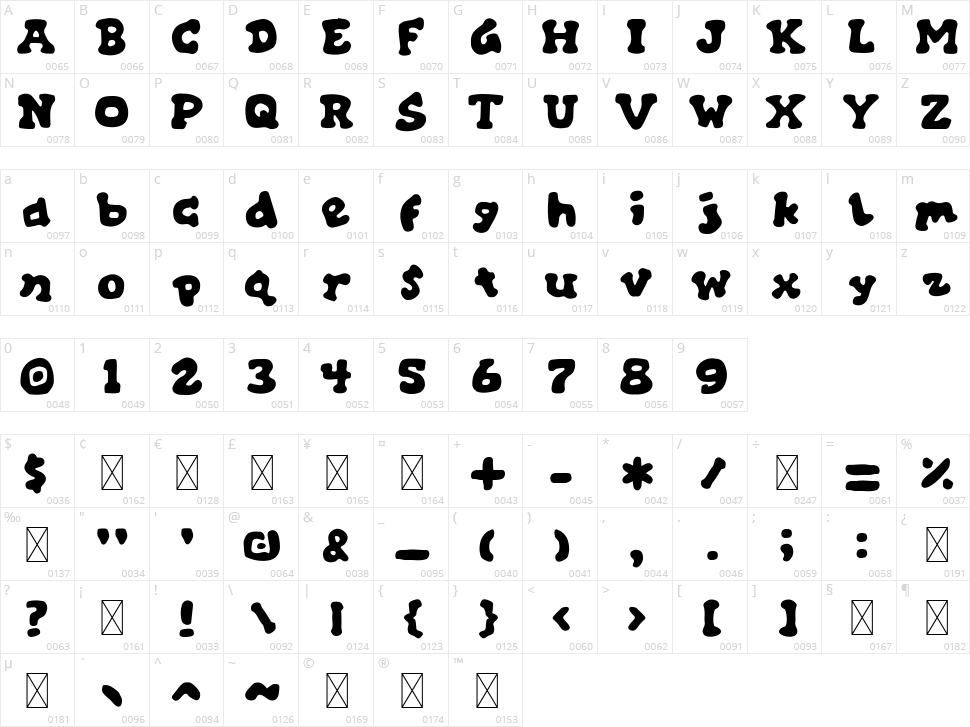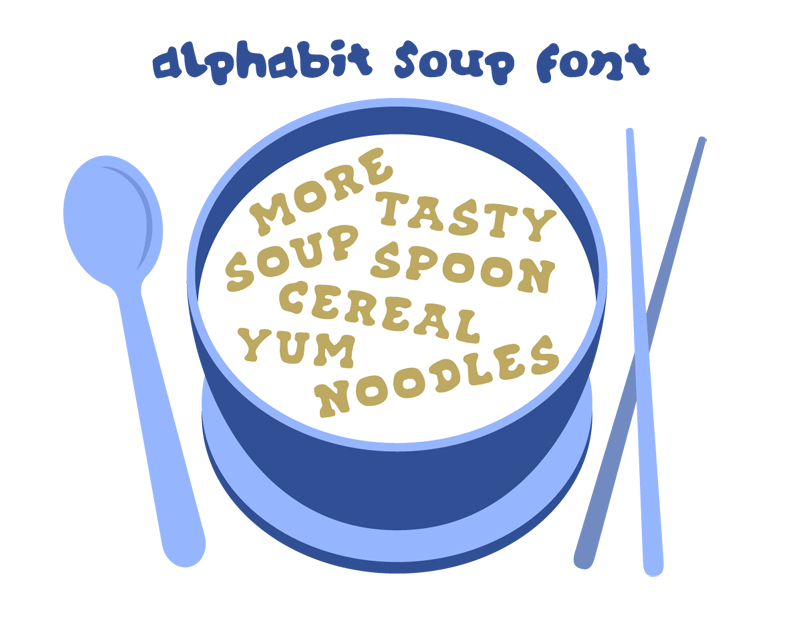
Alphabit Soup
These letters remind me of the cereal bits and noodles in food I ate when I was I kid. I guess they were trying to teach kids how to read.